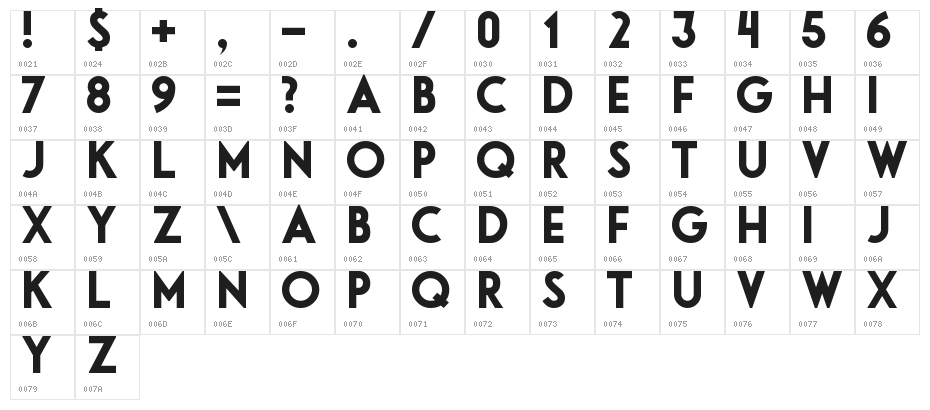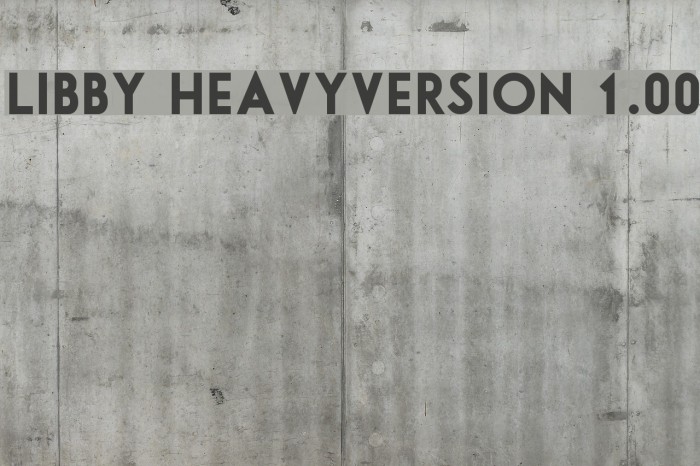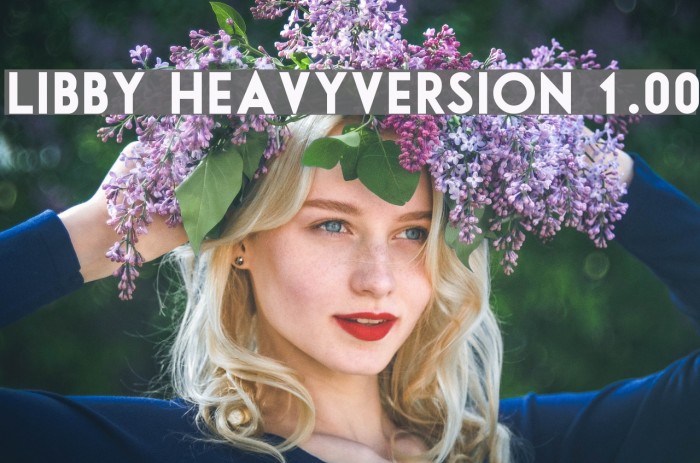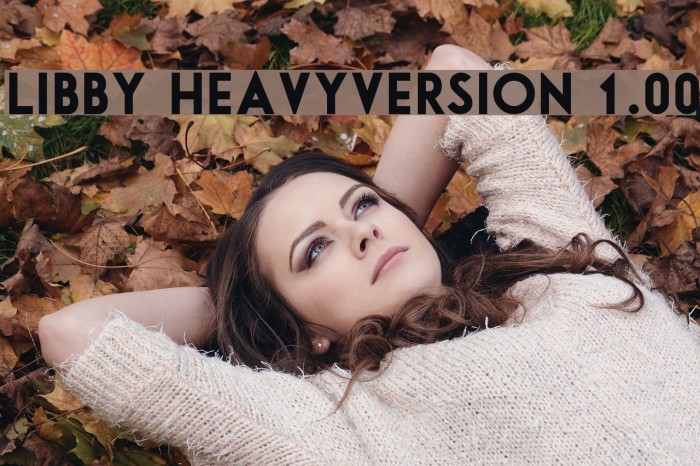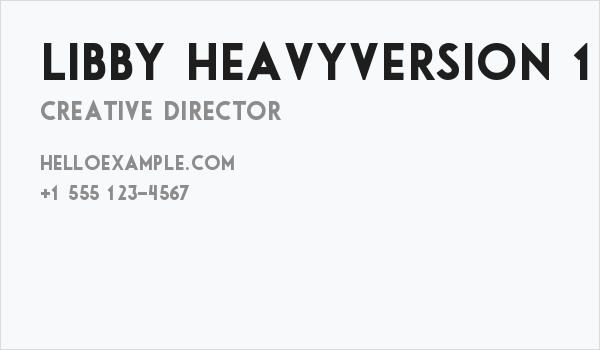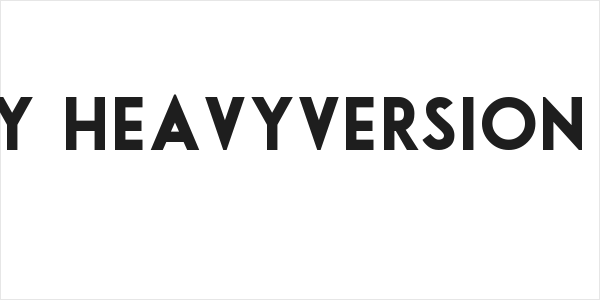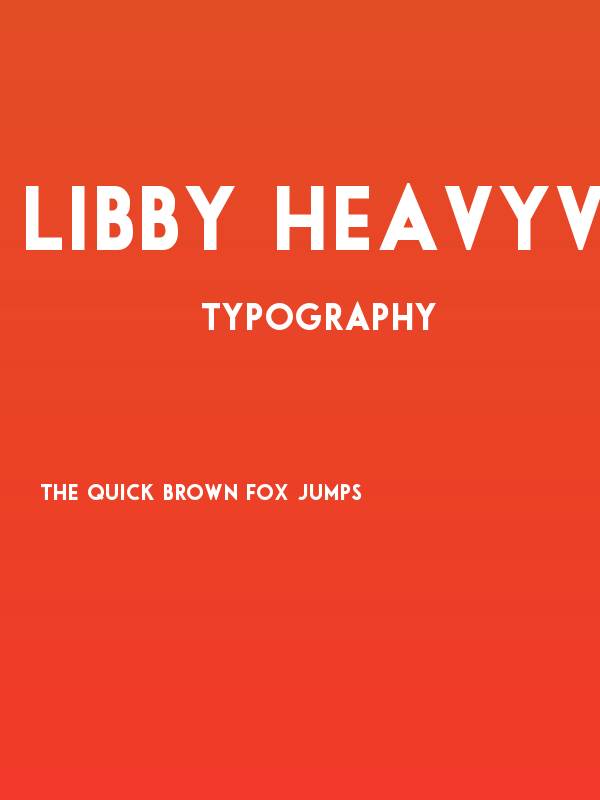
Libby Heavy:Version 1.00 Font
Libby Heavy:Version 1.00 Description
This font features bold, geometric shapes with a strong presence, making it ideal for impactful designs. The characters are uniformly thick, providing a consistent and powerful look. The uppercase and lowercase letters maintain a clean, modern aesthetic with sharp angles and smooth curves. The numbers are equally bold, ensuring readability and emphasis. Special characters are designed with the same boldness, integrating seamlessly with the rest of the font. Overall, this font exudes confidence and clarity, perfect for making a statement.
| Proposed Projects | Ideal for branding, headlines, posters, and any design requiring a strong visual impact. |